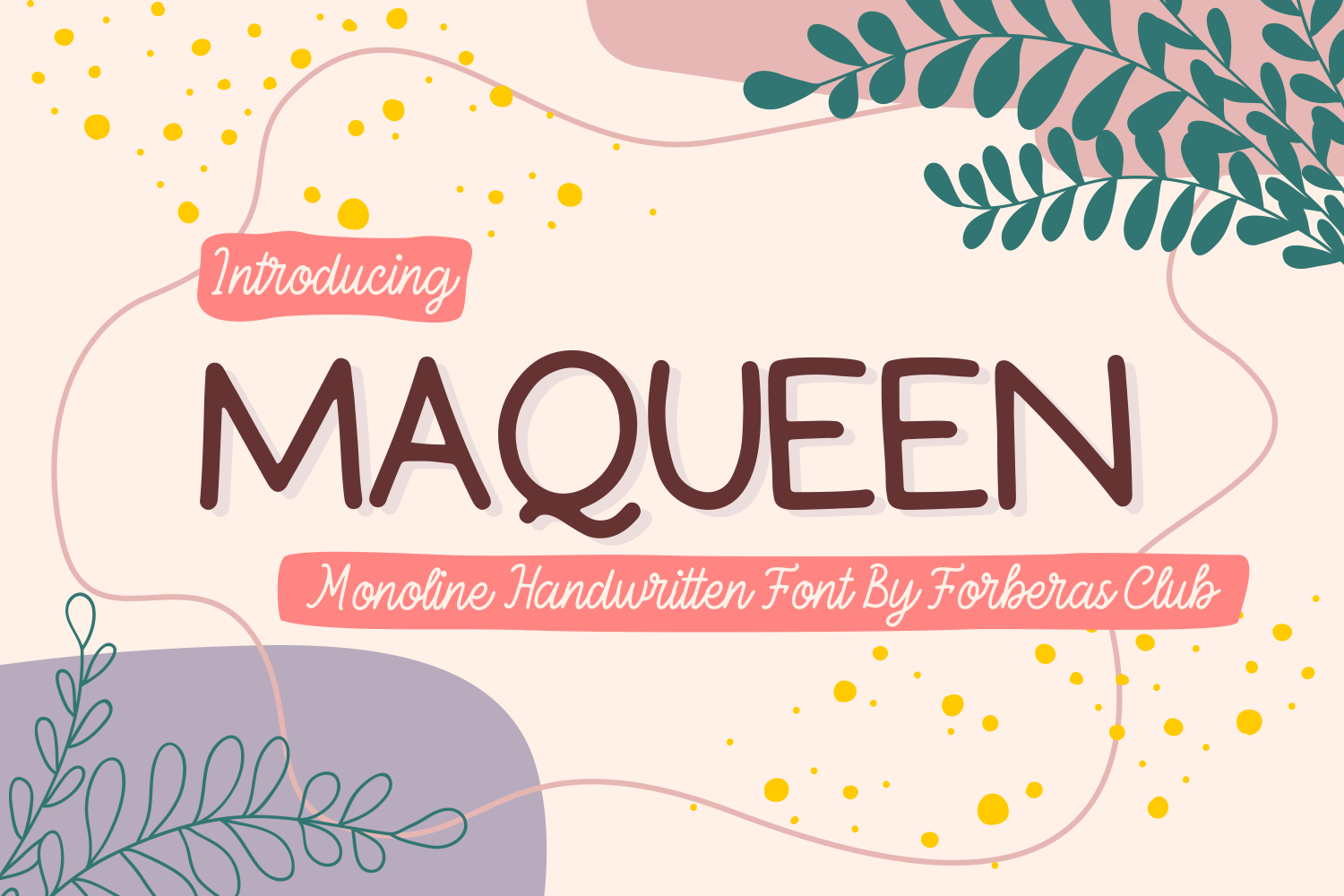
Introducing Maqueen by Forberas
Modern and beautiful handwritten script font! Great for wedding greeting cards, logos, branding materials, Invitation, business cards, quotes, posters, Cricut artwork and more!